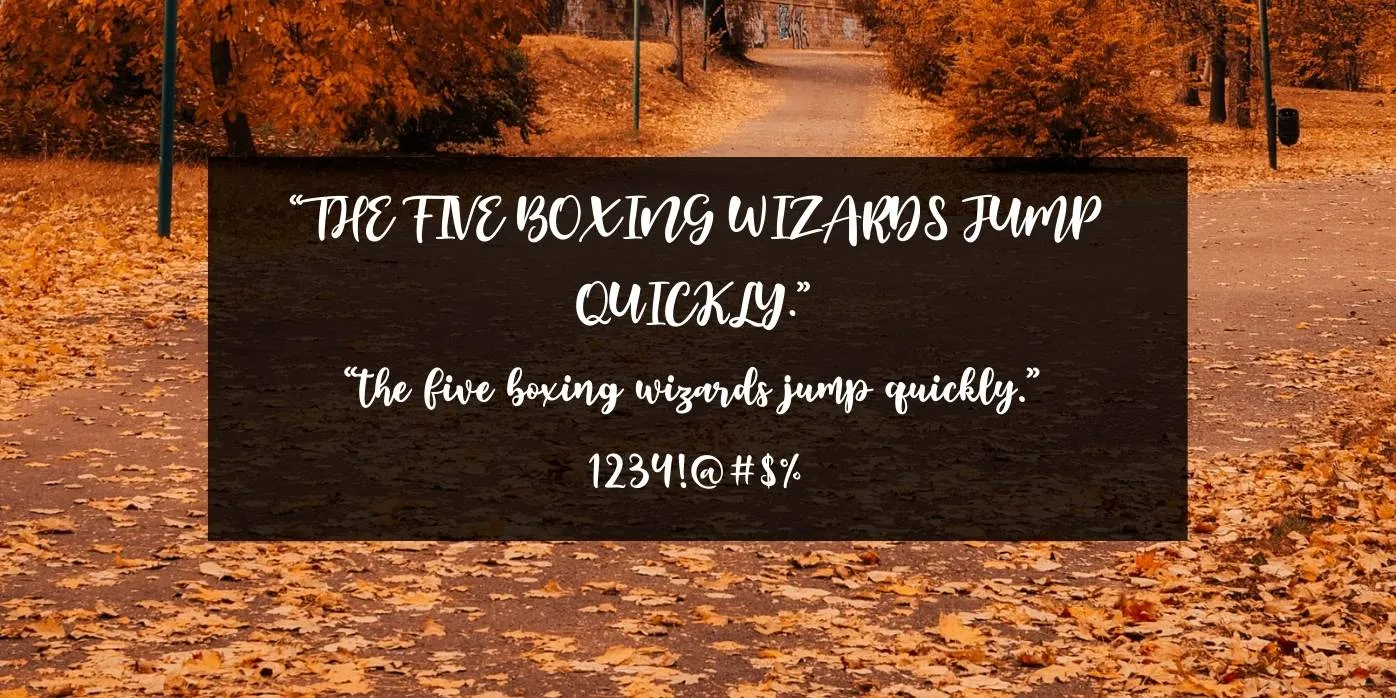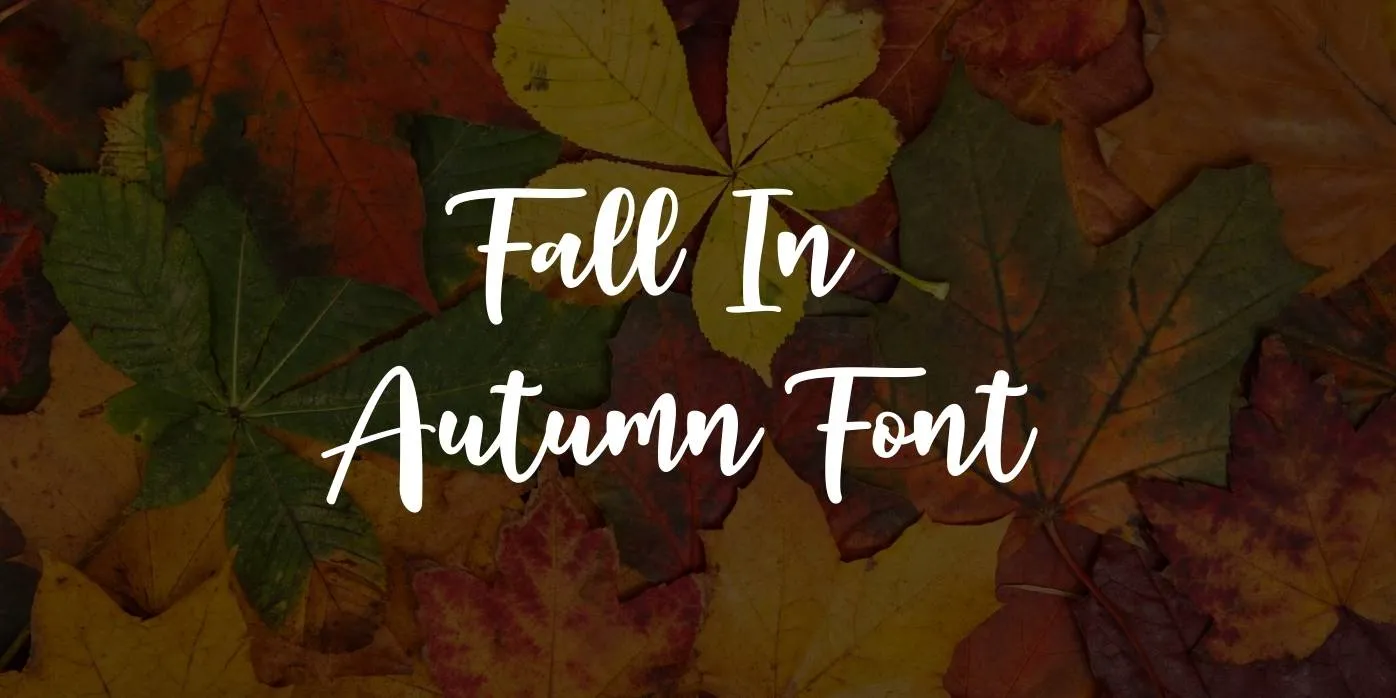
Fall in Autumn Font
Here, we are going to introduce a modern typeface known as Fall in Autumn Font. This typeface belongs to the script family. And it is a perfect choice for those who are looking for a stylish and contemporary font. This typeface was created by letternun foundry, and by a Swedish designer.
And it was inspired by the fall season. The name of the typeface comes from the fact that the leaves of trees in autumn fall to the ground. Its copy and paste function is best for all text designs. You can use good vibes font which has the same style and characters as this one.
The Fall in Autumn Font has a very stylish and elegant look. It is perfect for branding, logos, headlines, and other creative projects. This typeface is available in two styles: regular and italic. Each style contains four weights: light, regular, bold, and black.